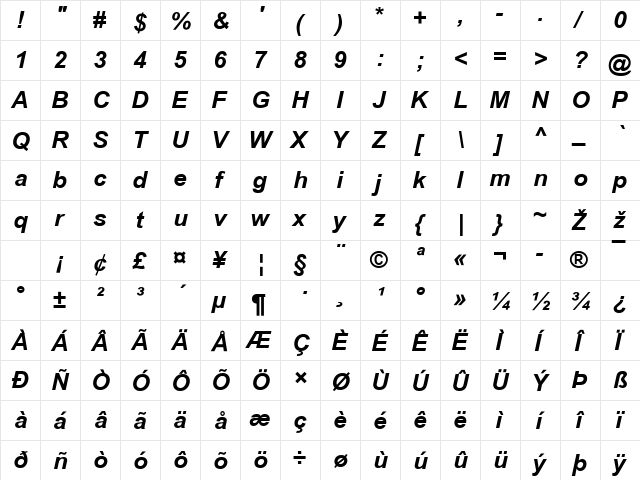
EE Arial Bold Italic Font Preview
Design Context for EE Arial Typeface
EE Arial takes a measured approach to typography — its balanced proportions and neutral character make it a reliable workhorse for both digital and print work. Its italic angle brings a sense of urgency and motion to the letterforms. The heavy weight commands attention and anchors typographic hierarchies.
Pro Tip: Try EE Arial for annotation and caption copy alongside an upright companion — the contrast in angle creates a dynamic but ordered typographic system.